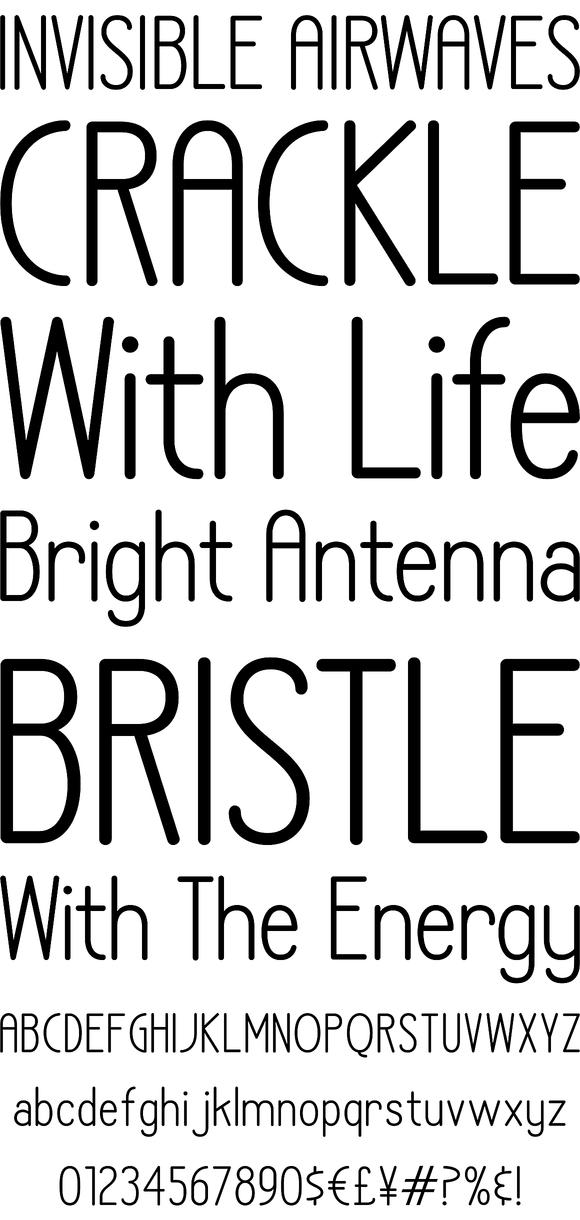
LA Headlights
LA Headlights is a display typeface that borders on that of a textual typestyle. It comes complete with an array of variant weights and styles perfect for lending a lighter handed feel to your type settings.